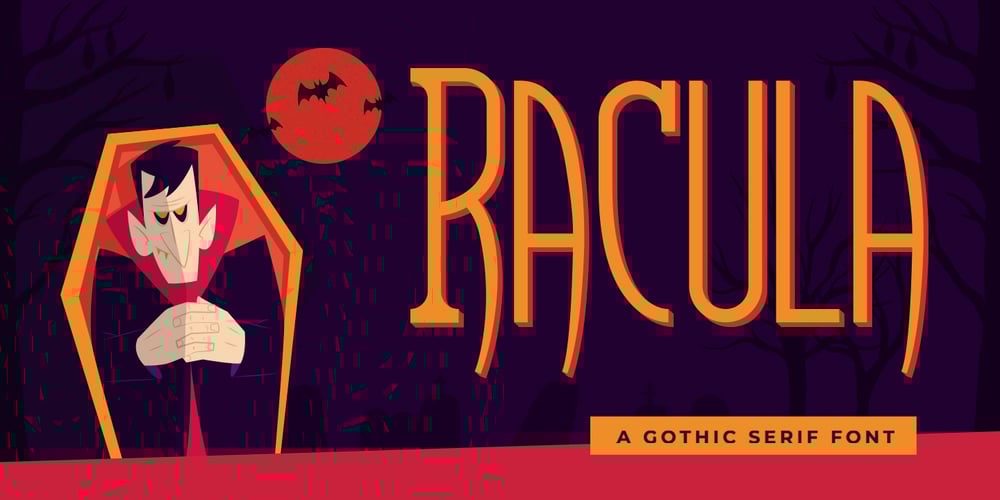
Racula Font Family was designed by Hilmius Akbar and published by Typefactory. Racula contains 1 styles and family package options. Racula is an fun, scary, and amazing gothic serif.It will add a unique and stunning look to your designs.It is perfect for fun scary games, children horror story book, logos, branding, advertising, Halloween projects, gothic designs, apparel, tattoos, and more!